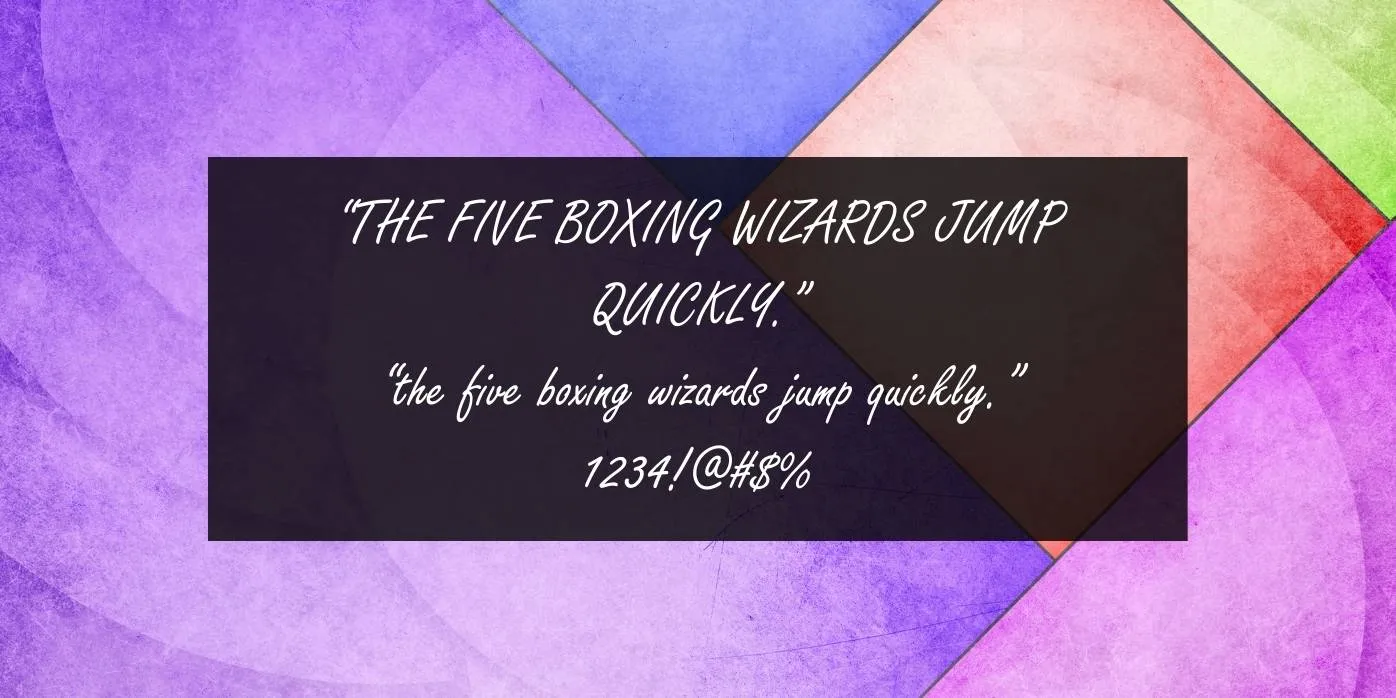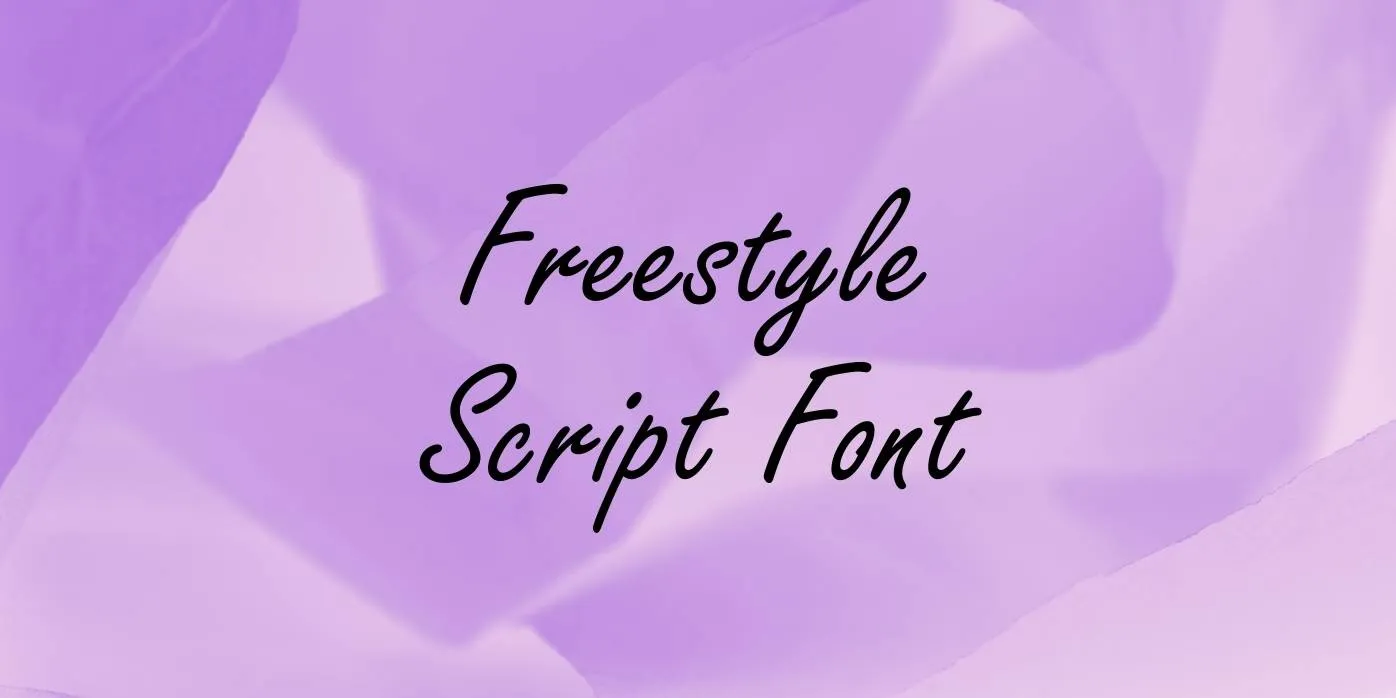
Freestyle Script Font
Freestyle Script Font is a very famous typeface that is best for use in many plans. This typeface belongs to the script font family. This typeface was created by Svetoslav Simov in the year 2009. The whole family of this font consists of 4 different fonts including Regular, Bold, Italic, and Bold Italic.
All these fonts contain more than 200 glyphs with support for many international languages. Its online generator tool is perfect for many classic designs. The best thing about Freestyle Script Typeface is that it is very easy to read even in small sizes and provides a very natural look. This font is widely used by many designers in various projects.
If you are also planning to use this font then you must know that it is a very versatile font that can be used for both body text as well as headlines.